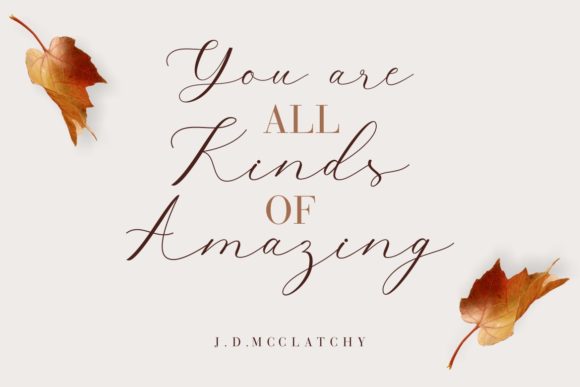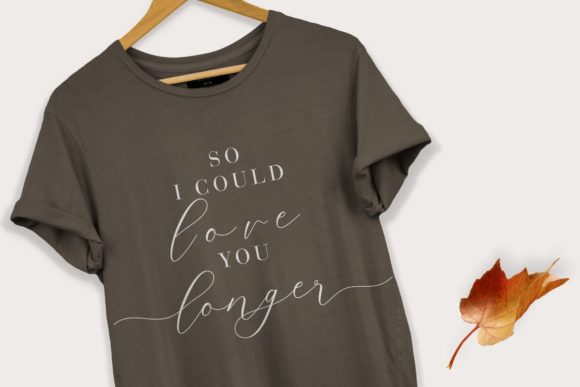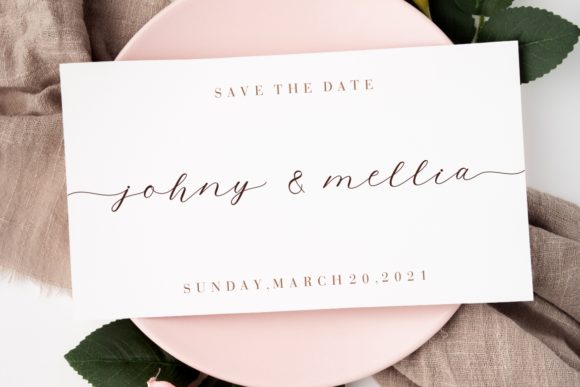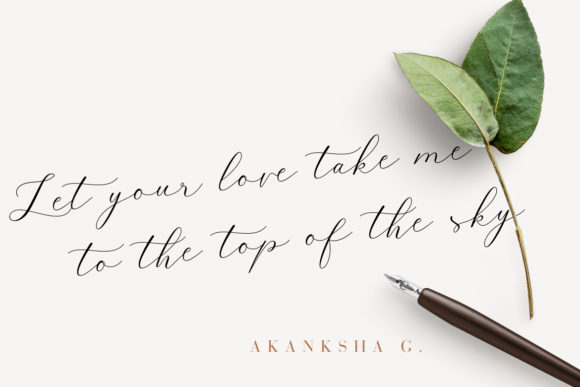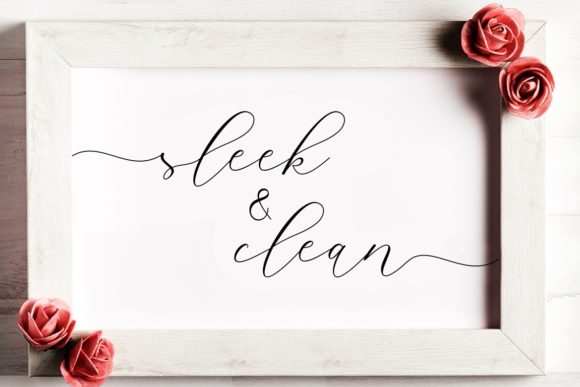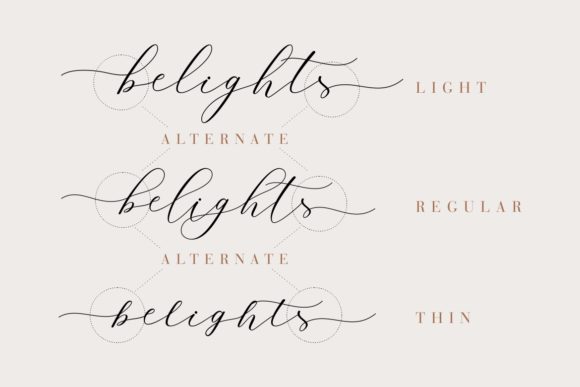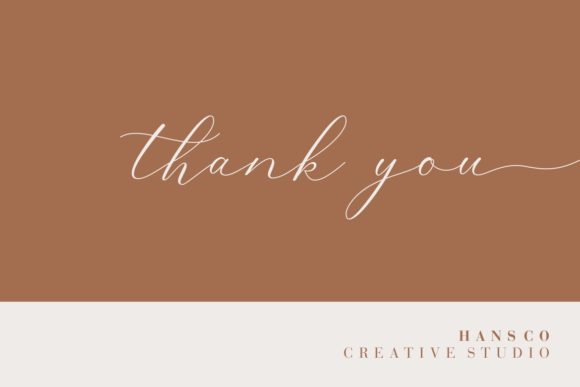
Belights Font
Belights is a beautiful and modern handwritten font. It features amazing swashes and ligatures. Fall in love with its authentic feel and use it to create gorgeous wedding invitations, beautiful stationary art, eye-catching social media posts, and cute greeting cards.